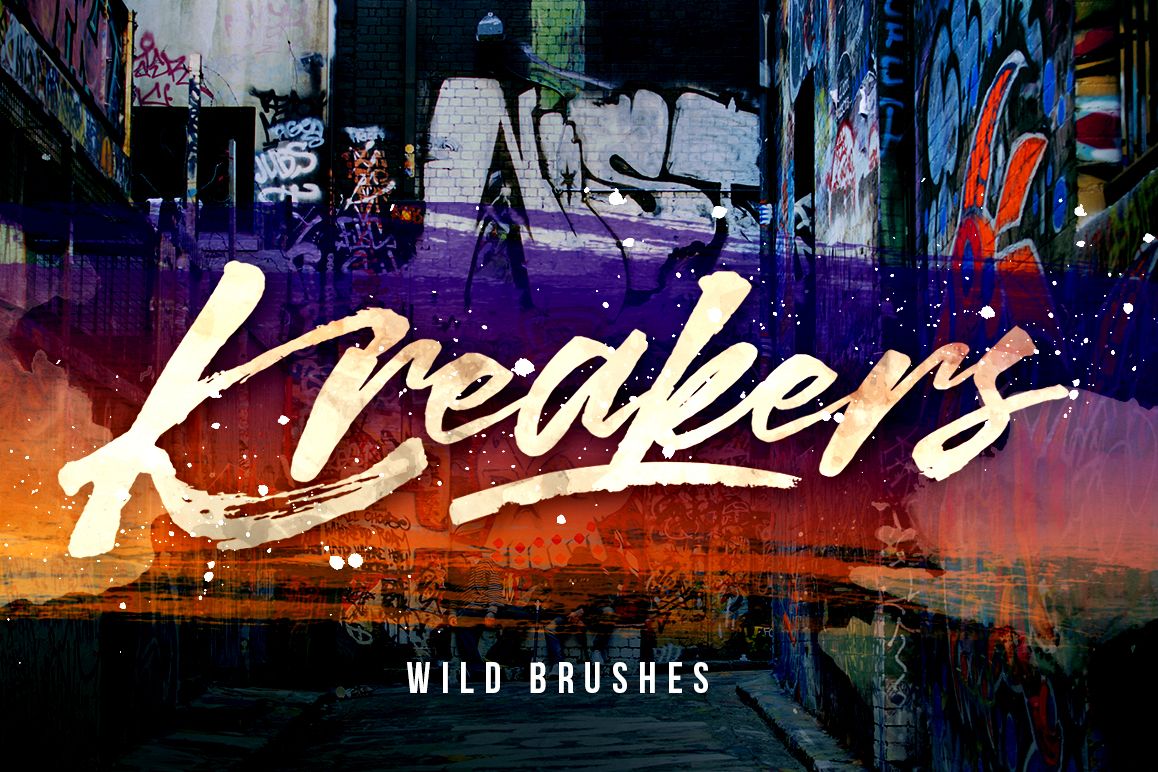
Kreakers Swash
Kreakers
Kreakers Swash
Kreakers is a hand brushed typeface, with authentic dry brush imperfections, and also provided some ligatures and Swashes Extra. Brand new stylish textured fonts and Make it easy for made logotype Handlettering Style. It will be great for Logotypes, Posters, Digital Lettering Arts, Clean Design, Branding Design, Sign, Merchandise and Social Media Posts.